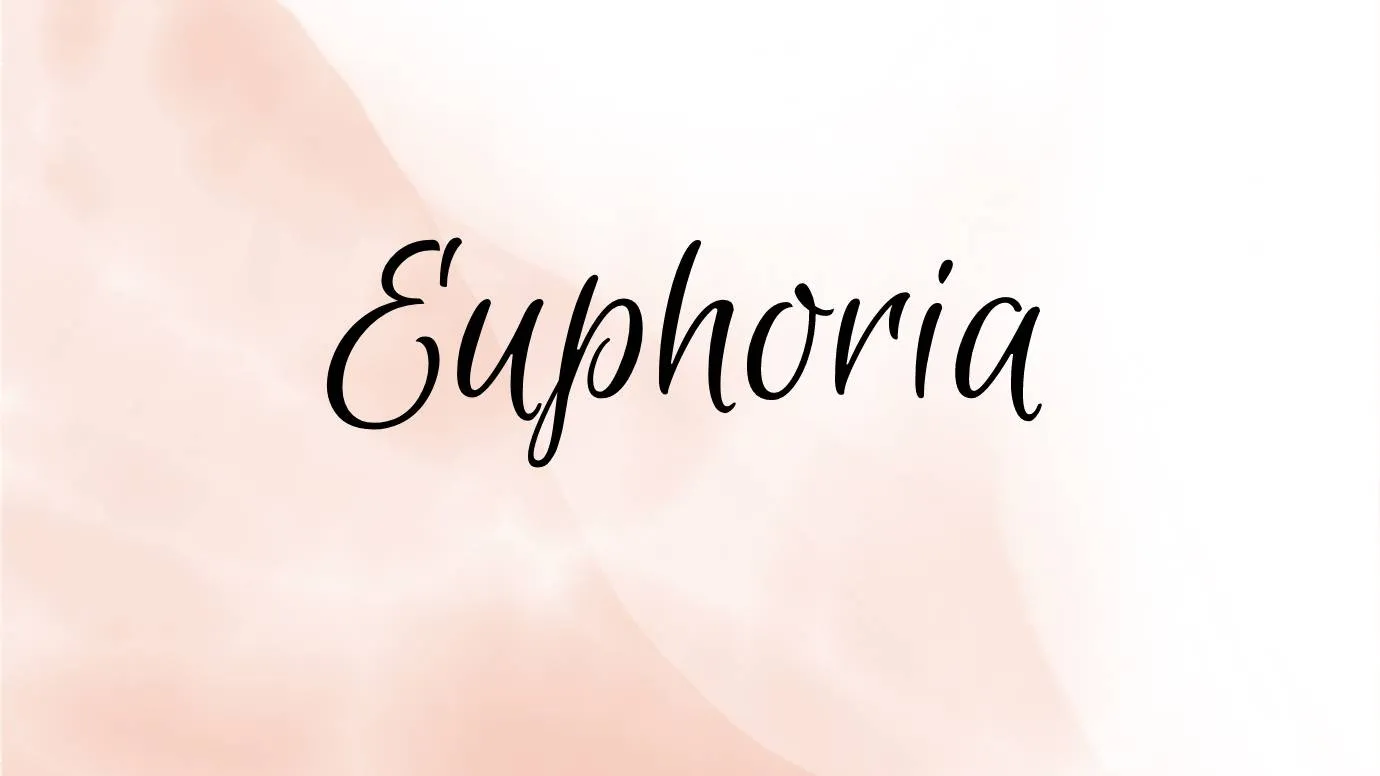
Euphoria Font Family is a stylish typeface and has a lot of advanced characters. Max Miedinger and Edouard Hoffmann are two brillient mind designers who worked on the creation of this font and later released this typeface through Typesenses.
| Name | Euphoria Font |
| Type | Script |
| Designer | Max Miedinger and Edouard Hoffmann |
| Foundry | Typesenses |